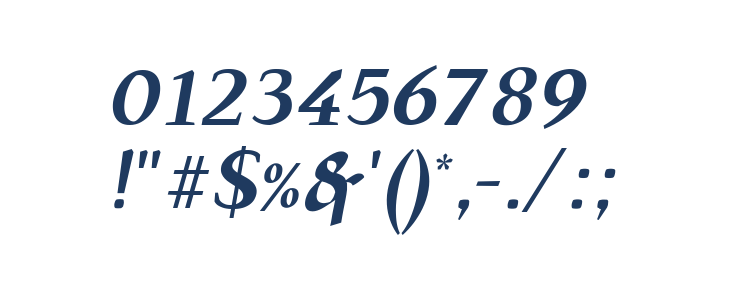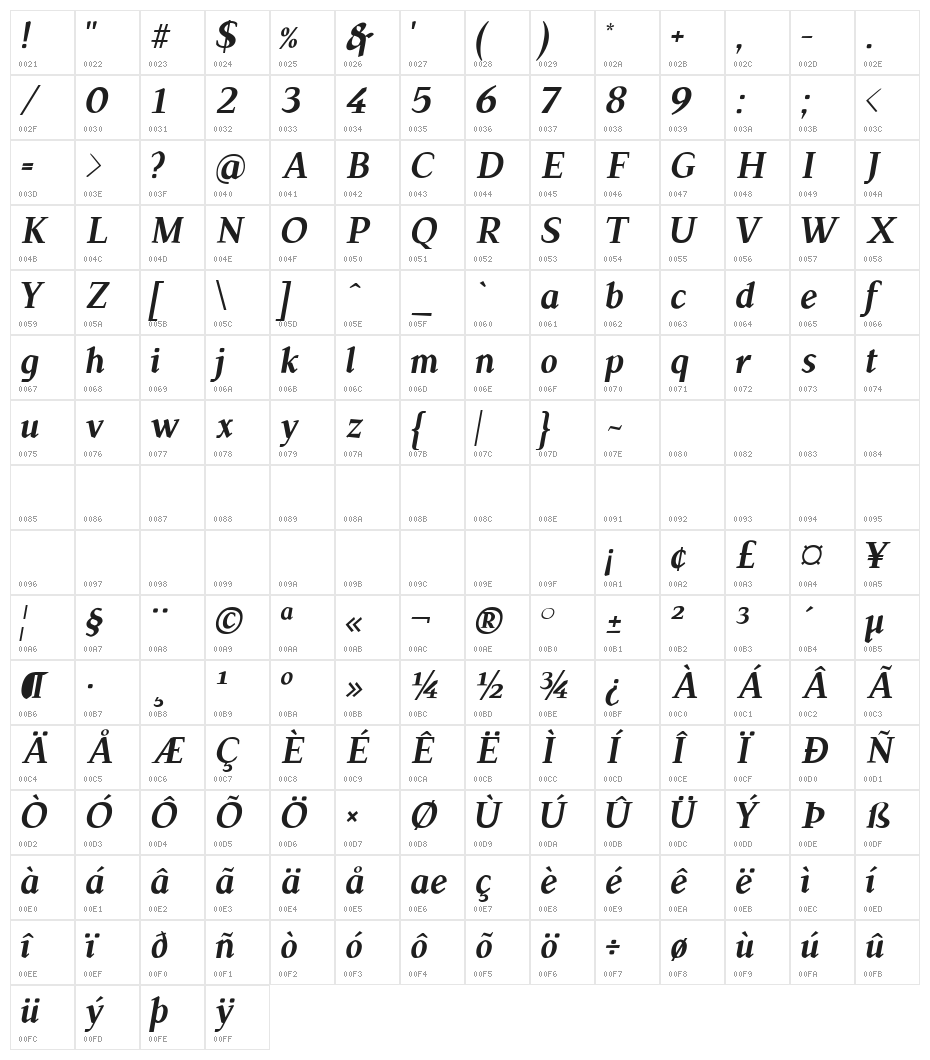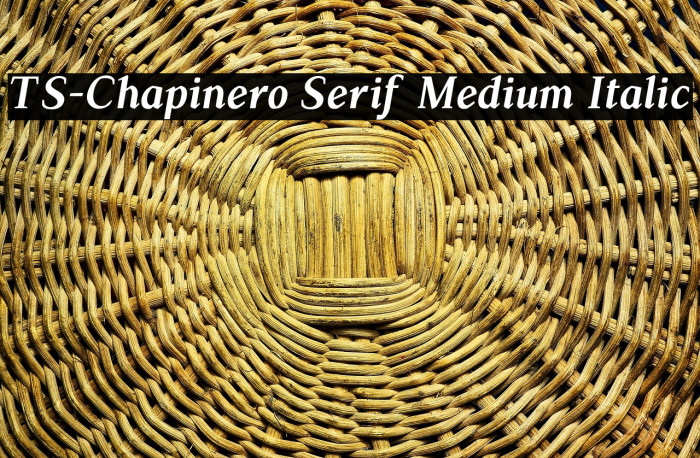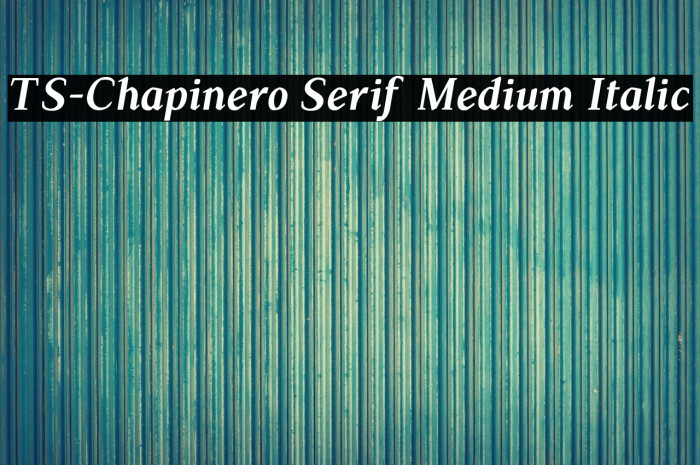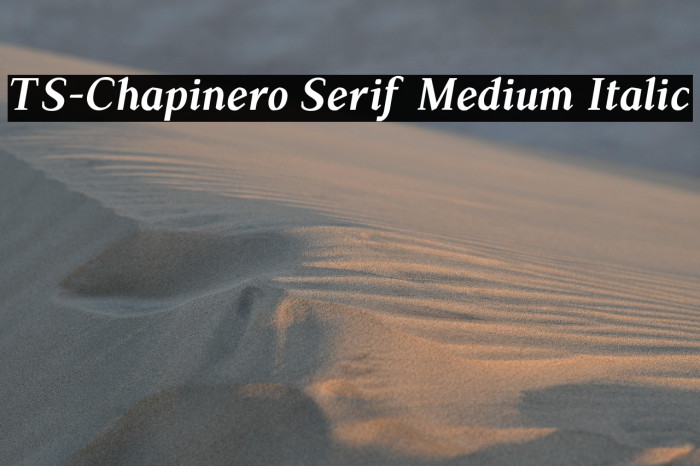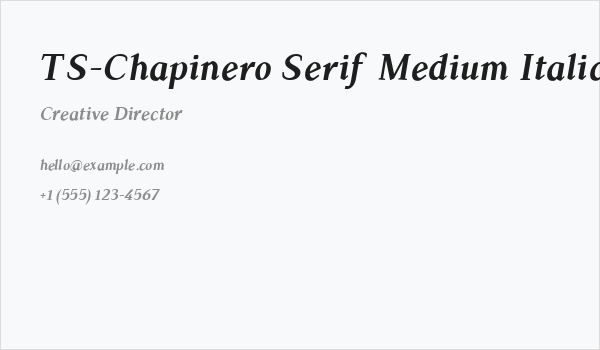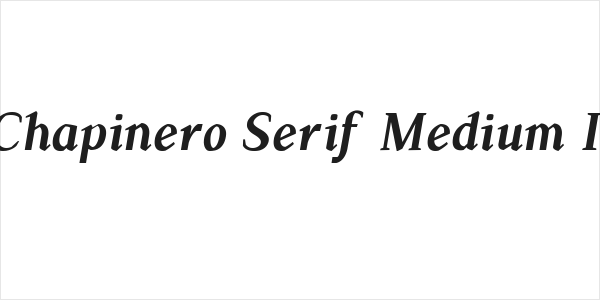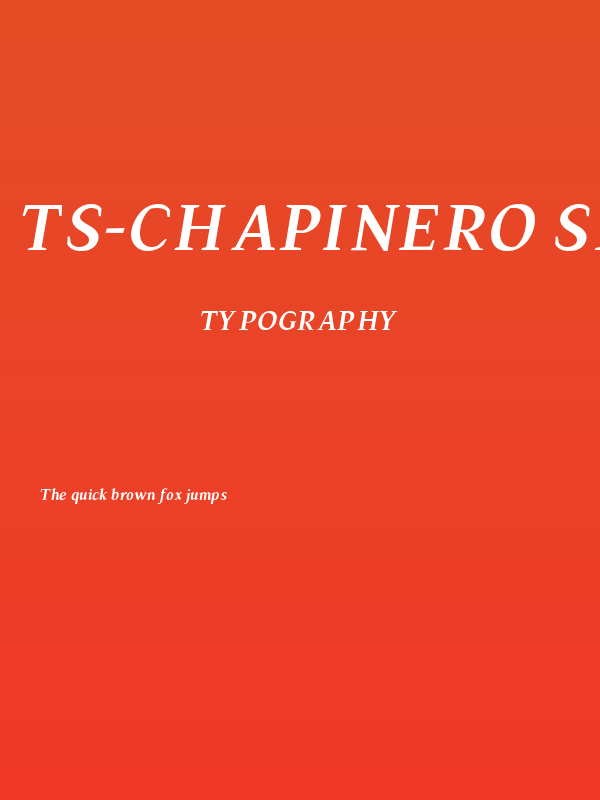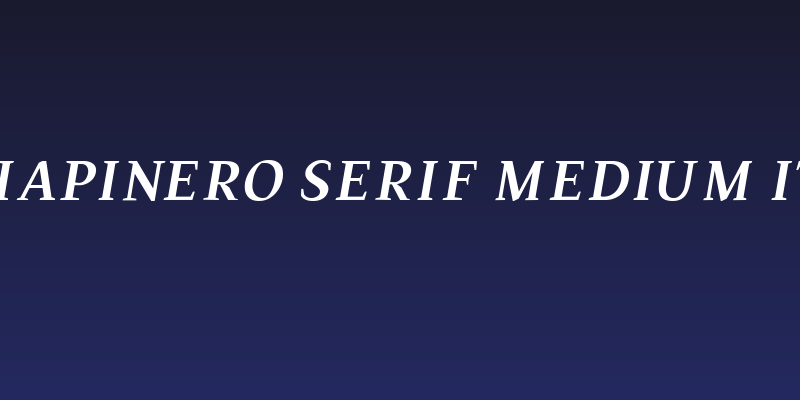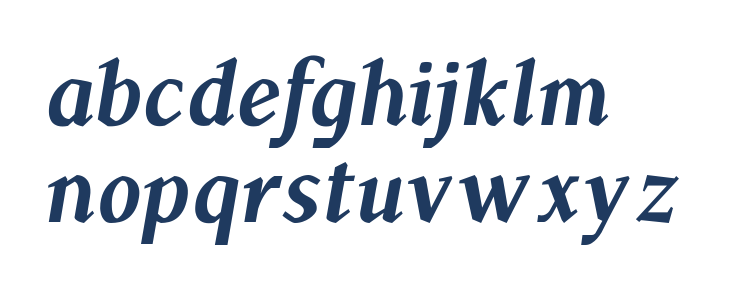
TS-Chapinero Serif Medium Italic Font
TS-Chapinero Serif Medium Italic Description
This font features a classic serif style with a medium weight and italicized form, giving it an elegant and sophisticated appearance. The characters exhibit a slight slant, enhancing the traditional serif elements with a modern twist. The strokes are moderately thick, providing a balanced contrast that ensures readability while maintaining a refined aesthetic. The uppercase letters are tall and commanding, while the lowercase letters are more rounded and approachable. The numerals are clear and distinct, matching the overall style of the alphabet. Special characters are well-integrated, maintaining the font's cohesive look.
| Proposed Projects | Ideal for editorial design, book covers, formal invitations, and branding projects that require a touch of sophistication. |